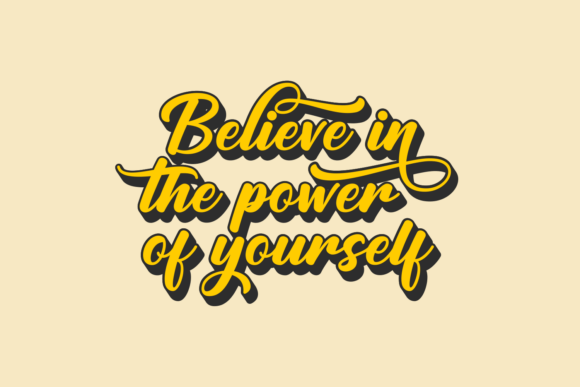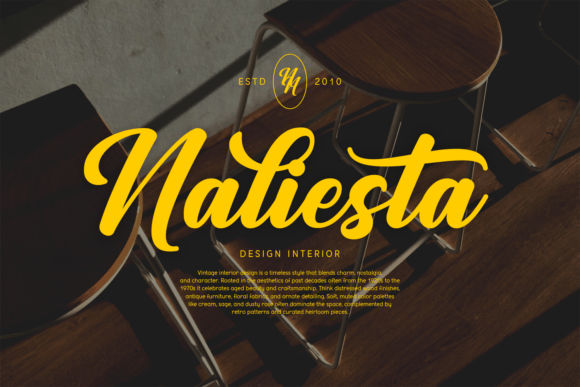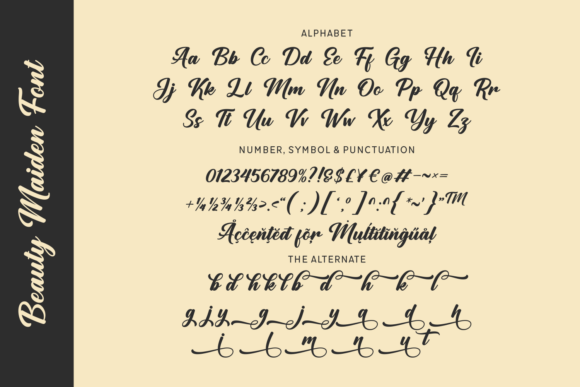
The Perfect Script: Unlocking the Charm of Beauty Maiden Font
You know that moment when you’re brainstorming ideas for a new design project, and suddenly, a spark of inspiration hits you? It’s like the whole world has come alive, and your imagination is running wild. For designers, this moment is all too familiar, and it’s exactly what we need to bring our creative visions to life. In this article, we’ll explore a font that embodies the essence of femininity and charm – the Beauty Maiden Font.
Beauty Maiden Font is a bold, handwritten script that exudes confidence and elegance. Its smooth curves and swashes make it a perfect fit for fashion branding, quotes, and social media graphics that demand a strong feminine touch. Whether you’re working on a fashion magazine, a lifestyle blog, or a personal branding project, this font is sure to captivate your audience and leave a lasting impression.
Key Features of Beauty Maiden Font
- Font Family: Beauty Maiden Font is a unique, hand-drawn font designed to evoke a sense of elegance and sophistication.
- Unique Characteristics: Beauty Maiden Font features intricate, hand-drawn details, ornate flourishes, and a touch of vintage charm, making it perfect for designs that require a sense of luxury and refinement.
Beauty Maiden Font Review
I must say, the Beauty Maiden Font is quite the catch ✨. The elegant and whimsical feel it brings to any design is undeniable. The cursive script is perfect for adding a touch of sophistication and romance to your projects. Whether it’s a wedding invitation, a fashion blog, or a luxury brand, this font is sure to impress.
Here are some of its standout features:
- Delicate and flowing lines that add a sense of movement and fluidity ✨
- Highly customizable, allowing you to adjust the weight, spacing, and other parameters to suit your design needs ✨
- Available in various styles, from regular to bold, to give you the perfect level of contrast and emphasis ✨
However, I do have some reservations:
- May not be suitable for headings or titles where legibility is a top priority ⚠️
- Can be quite ornate, so it may not be the best choice for simple or minimalist designs ⚠️
- May require additional font processing or manipulation to achieve the desired look, which can be time-consuming ⚠️
Overall, I think the Beauty Maiden Font is a great addition to any designer’s toolkit. With its unique charm and versatility, it’s sure to bring a touch of magic to your designs. Just be mindful of its limitations and use it wisely.
The Beauty Maiden Font is perfect for:
- Vintage-inspired designs
- Romantic and feminine branding
For best results, pair Beauty Maiden Font with other elegant and vintage-inspired fonts. Use it in combination with distressed textures and watercolor effects to create a romantic and whimsical look.